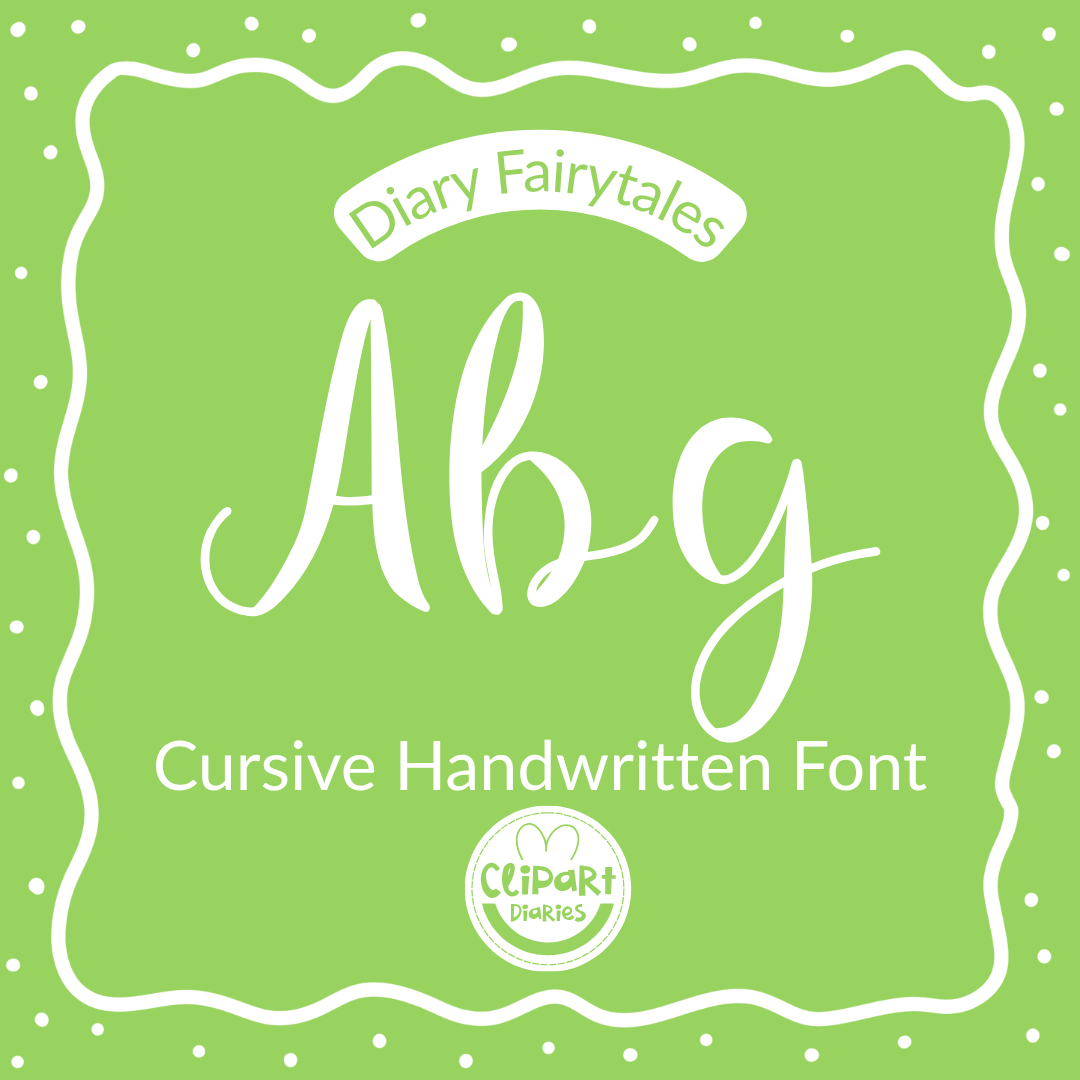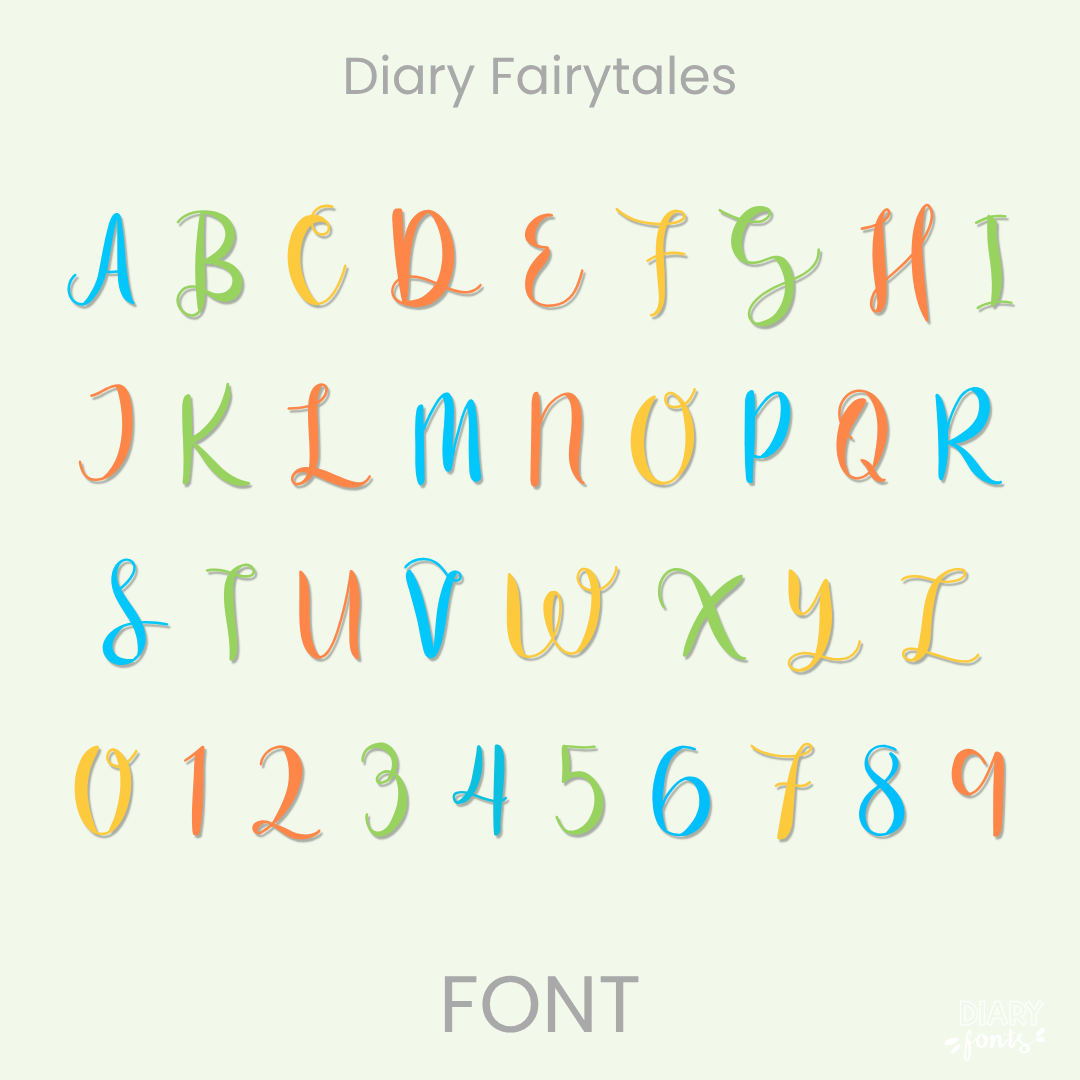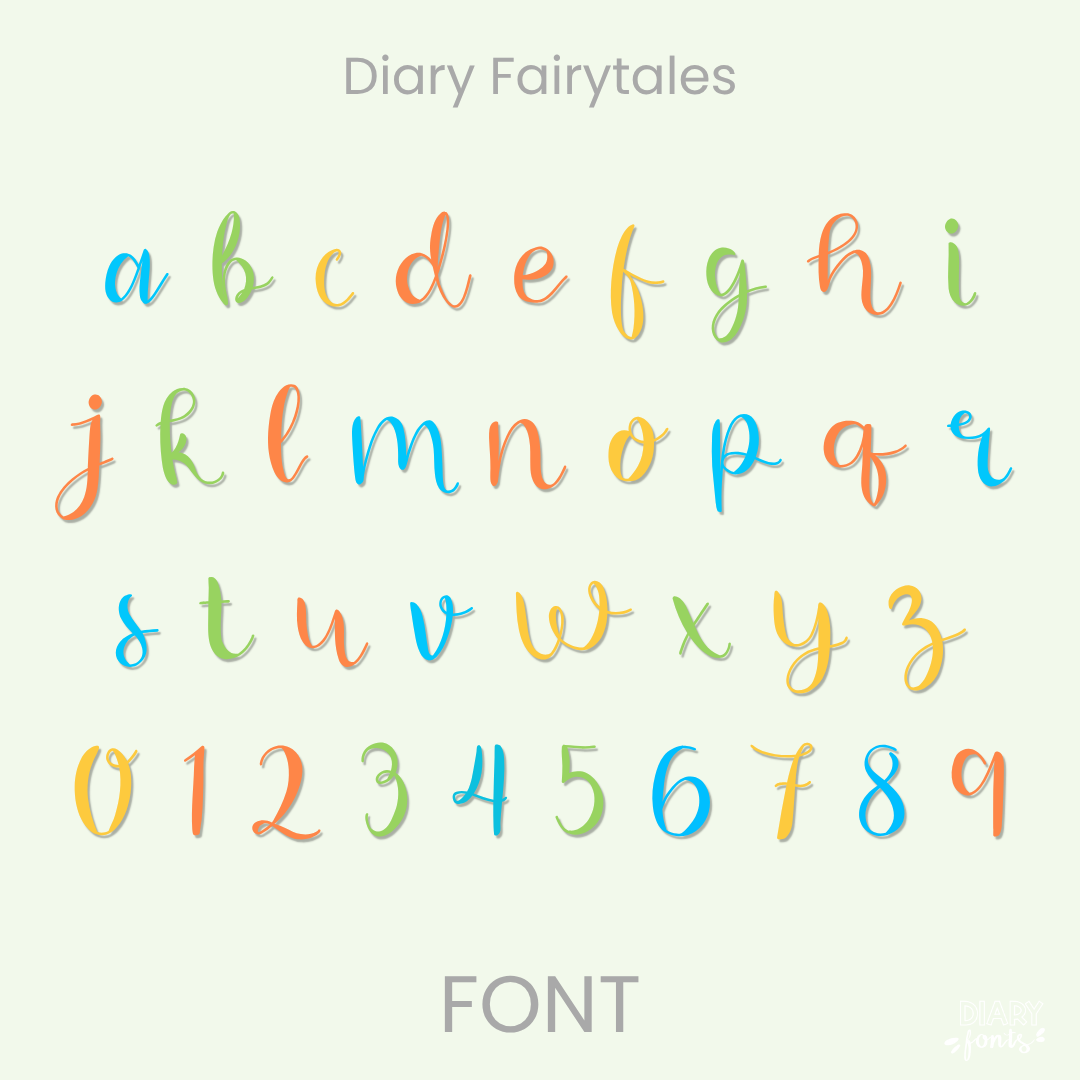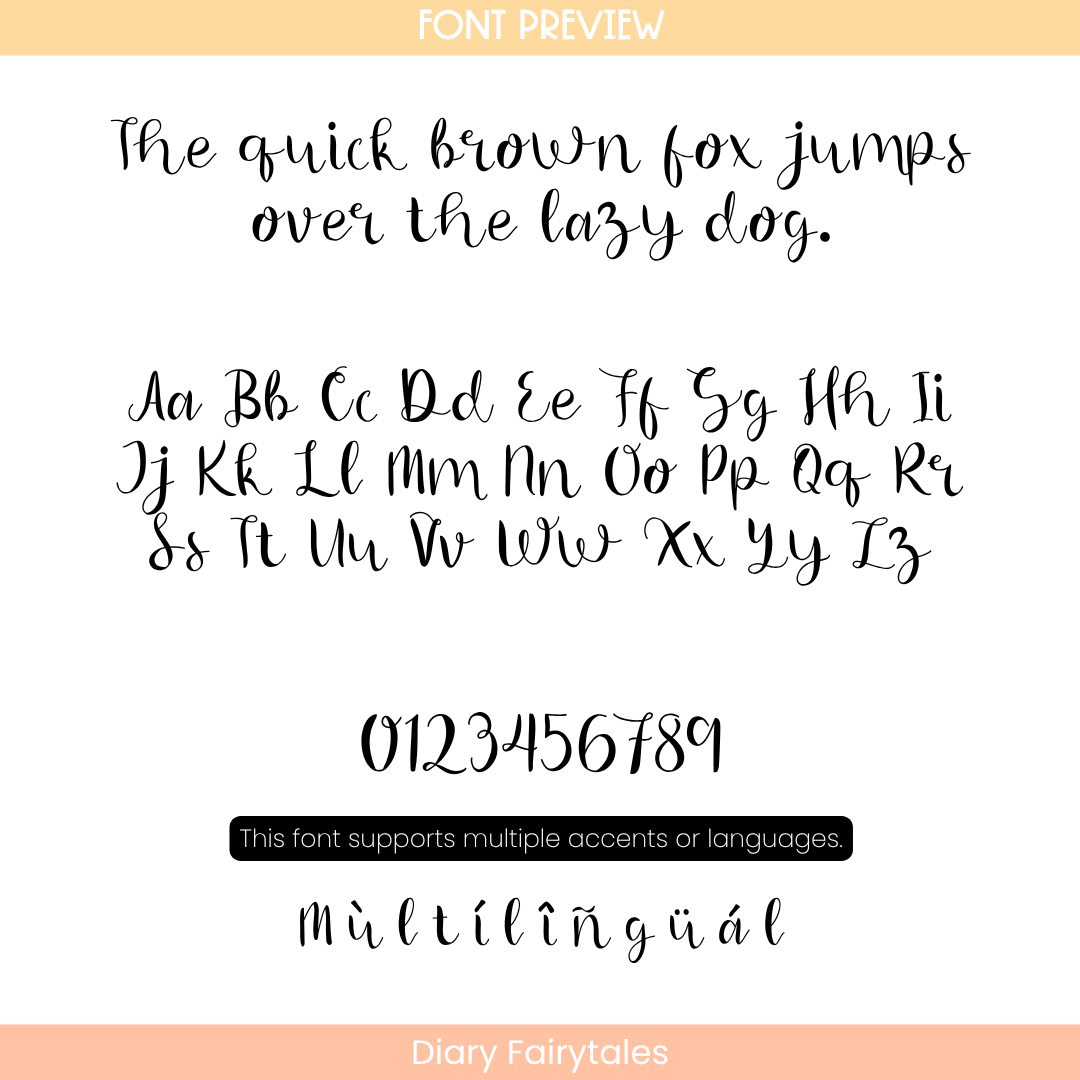
If you want to give your projects a graceful and personalized look, Diary Fairytales is an excellent choice. It features delicate, rhythmic cursive characters that mimic elegant hand-lettering while remaining exceptionally clear and legible for students. This makes it a stunning option for eye-catching slide headers, poetry readings, cursive writing prompts, and decorative classroom labels. The font includes a full set of uppercase and lowercase script letters, numbers, and multiple accents to support different languages. It is ready for use in Canva, MS Office, and Adobe Apps, and it works perfectly with iPad apps like GoodNotes and Procreate. Whether for personal classroom designs or commercial teacher resources, this font adds a polished and enchanting hand-drawn aesthetic to your work.
Diary Fairytales Font
The Diary Fairytales is a beautiful, flowing cursive script font designed to bring a touch of elegance and magic to your digital resources and classroom materials.